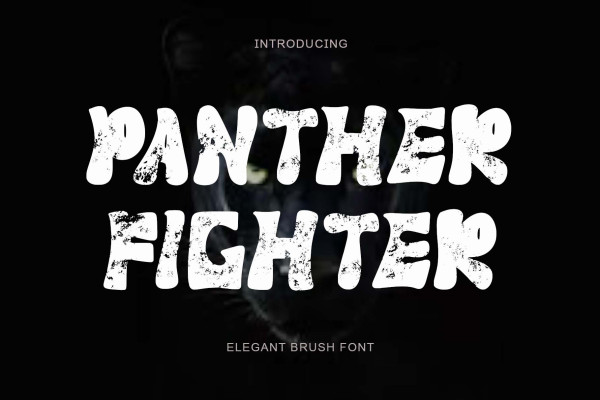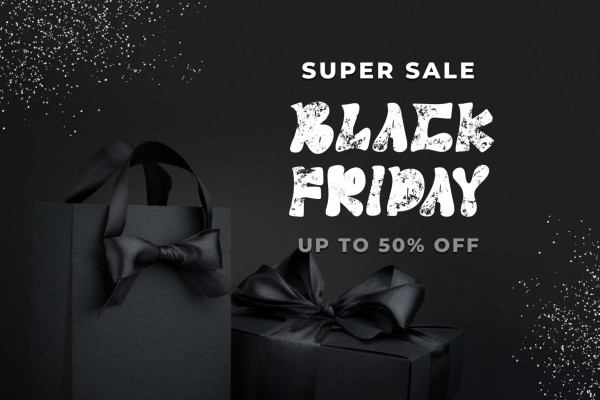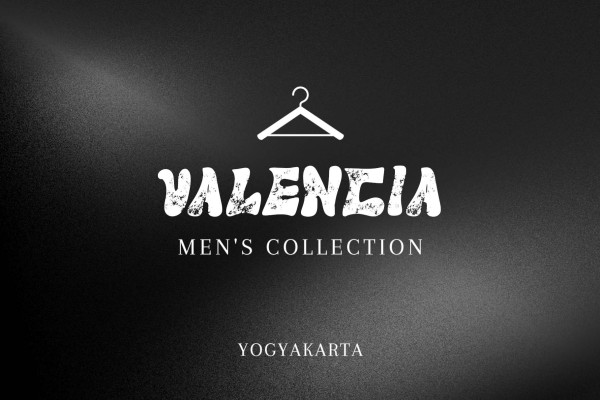
Panther Fighter
Panther Fighter Font is a modern and elegant brush font. This font is equipped with uppercase, lowercase, numerals, punctuations and multilingual support. It is suitable for logos, movie titles, Halloween, Christmas, business branding, ornaments, mock ups and others.